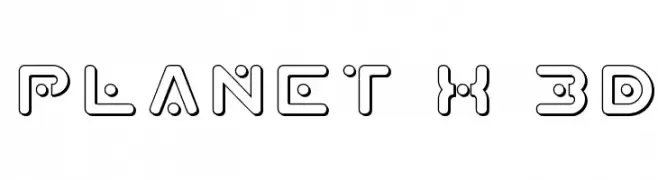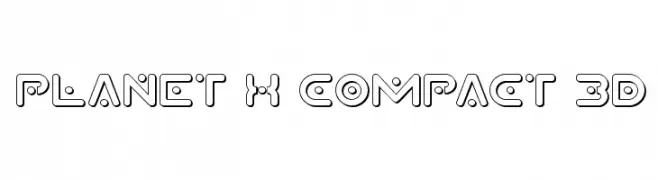
( Iconian Fonts - Daniel Zadorozny - www.iconian.com )
A futuristic, geometric font with a 3D outline effect.
( Iconian Fonts - Daniel Zadorozny - www.iconian.com )
A futuristic, 3D, italicized font with bold geometric outlines.
( Iconian Fonts - Daniel Zadorozny - www.iconian.com )
A futuristic, geometric font with bold, rounded letterforms and unique dot accents.
( Iconian Fonts - Daniel Zadorozny - www.iconian.com )
A futuristic, geometric font with a 3D effect and consistent line thickness.
( Iconian Fonts - Daniel Zadorozny - www.iconian.com )
A futuristic, 3D, italicized font with geometric and outlined letterforms.
( Iconian Fonts - Daniel Zadorozny - www.iconian.com )
A futuristic, geometric font with rounded edges and a compact, bold style.
( Iconian Fonts - Daniel Zadorozny - www.iconian.com )
A futuristic, condensed italic font with rounded edges and unique cut-out sections.